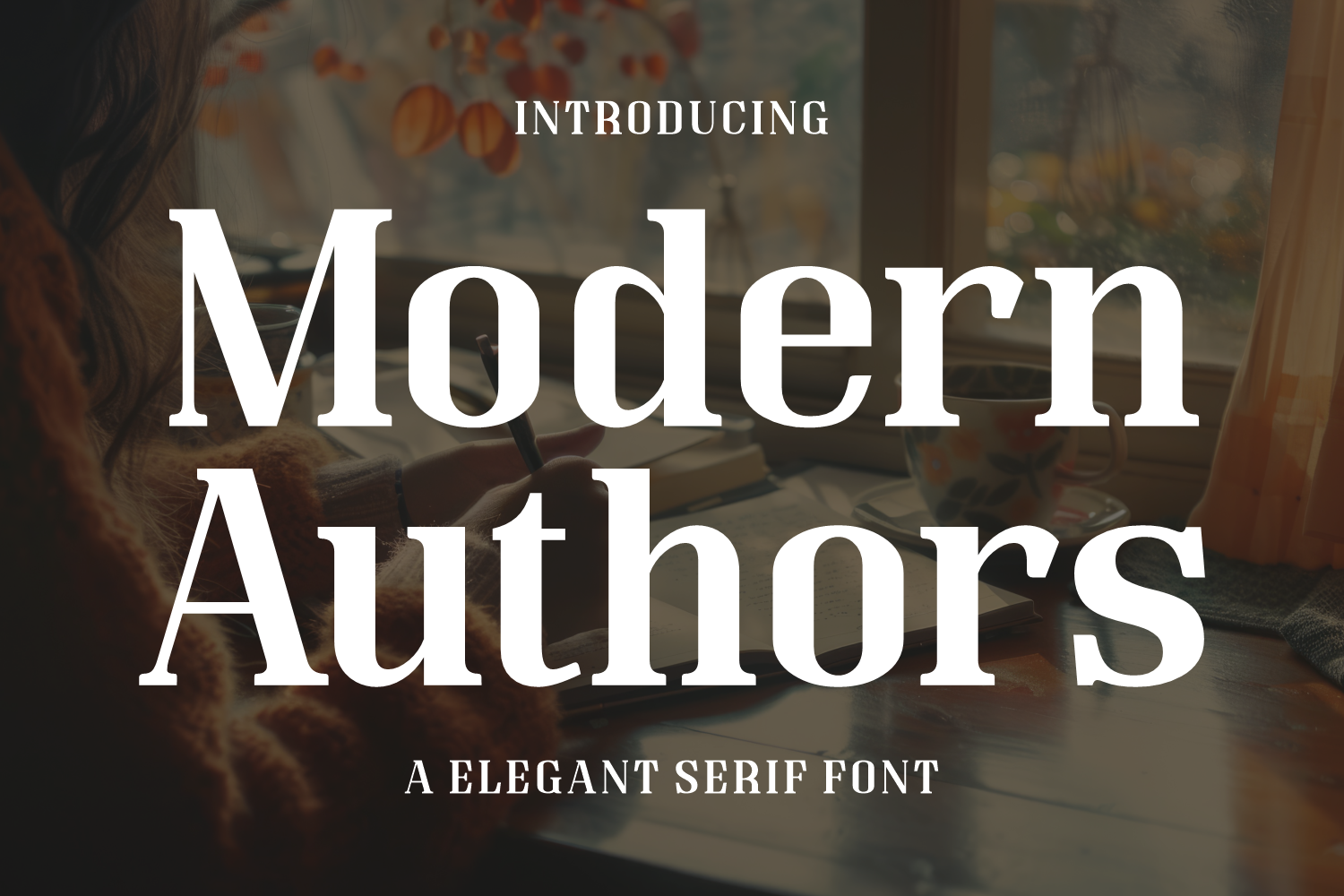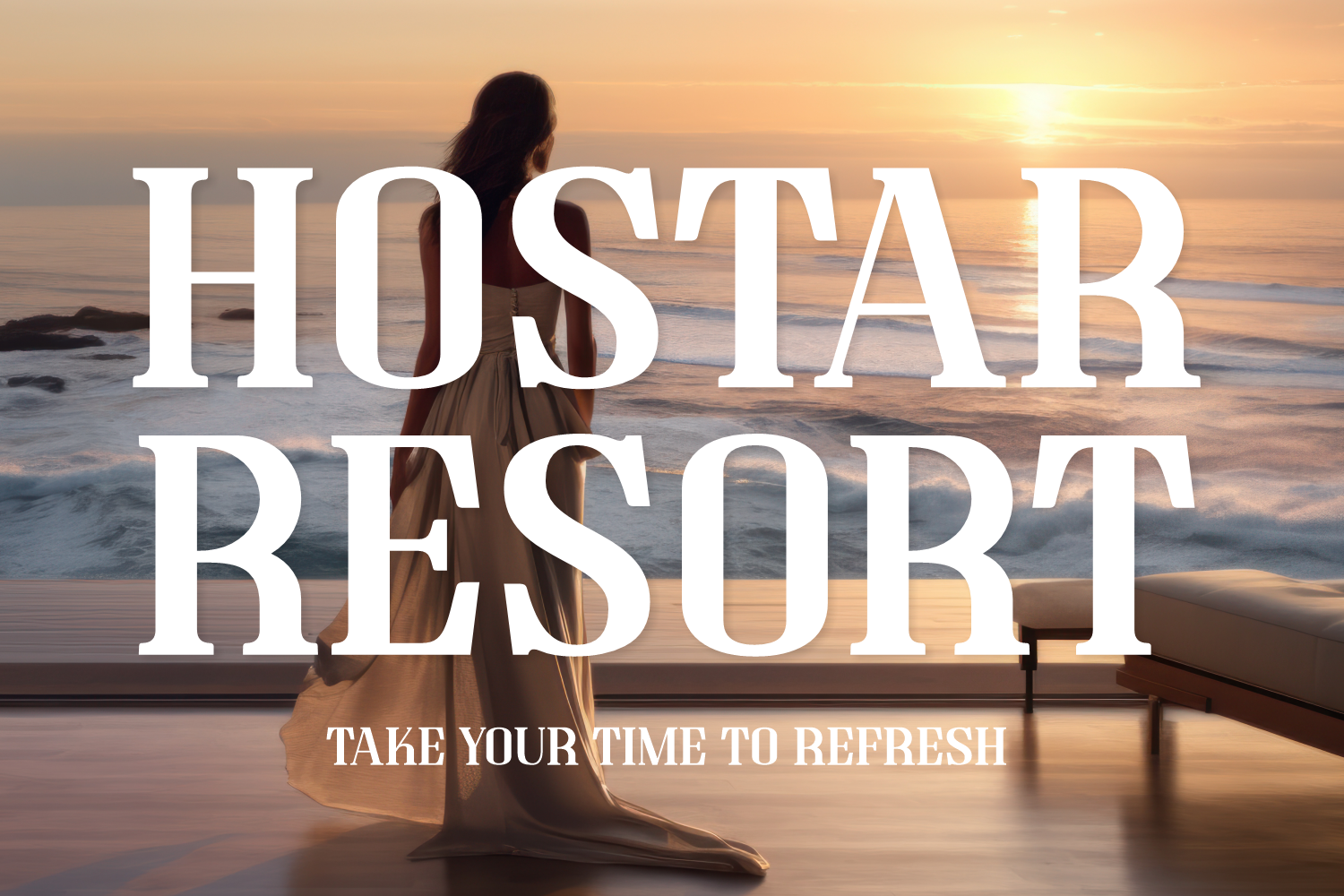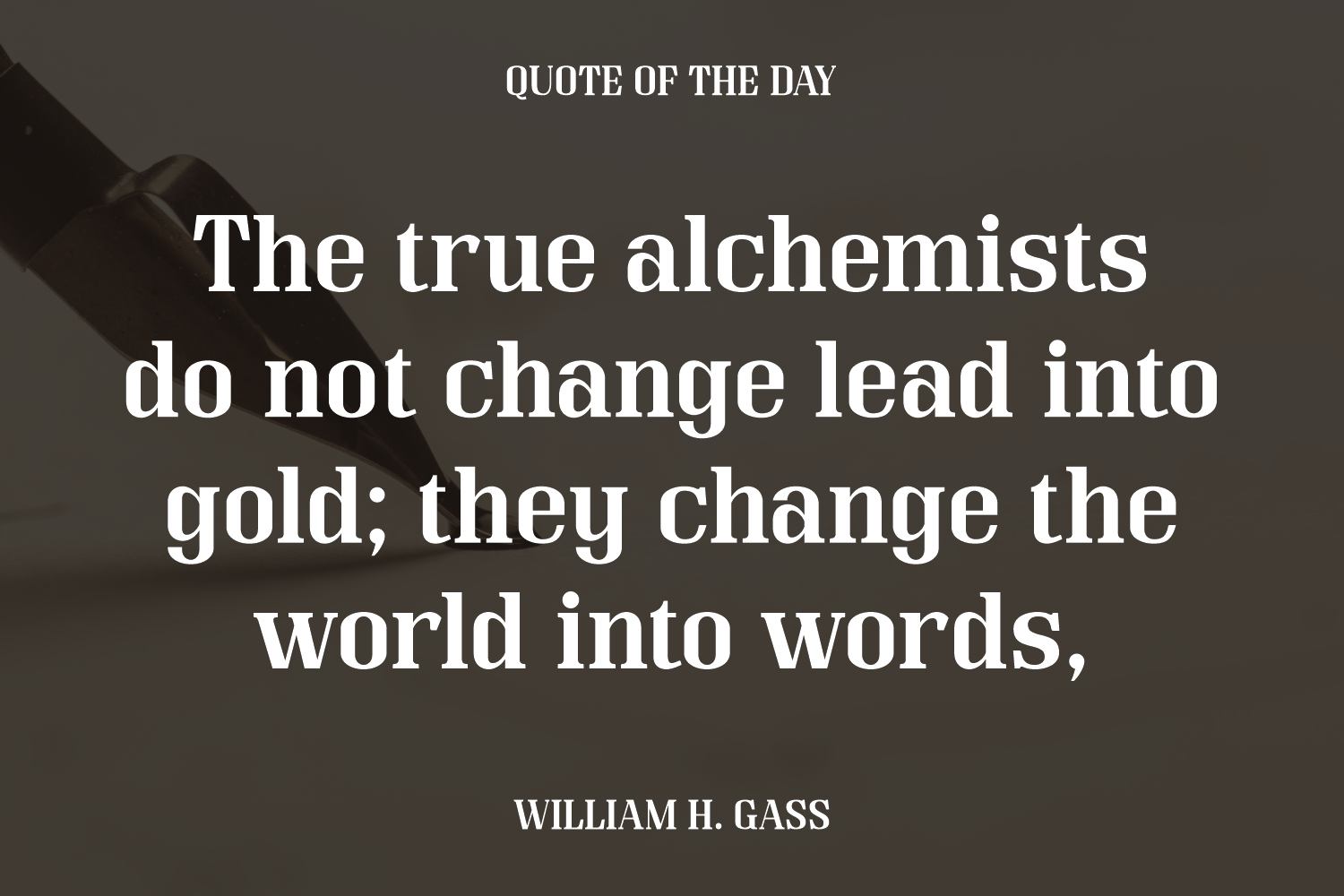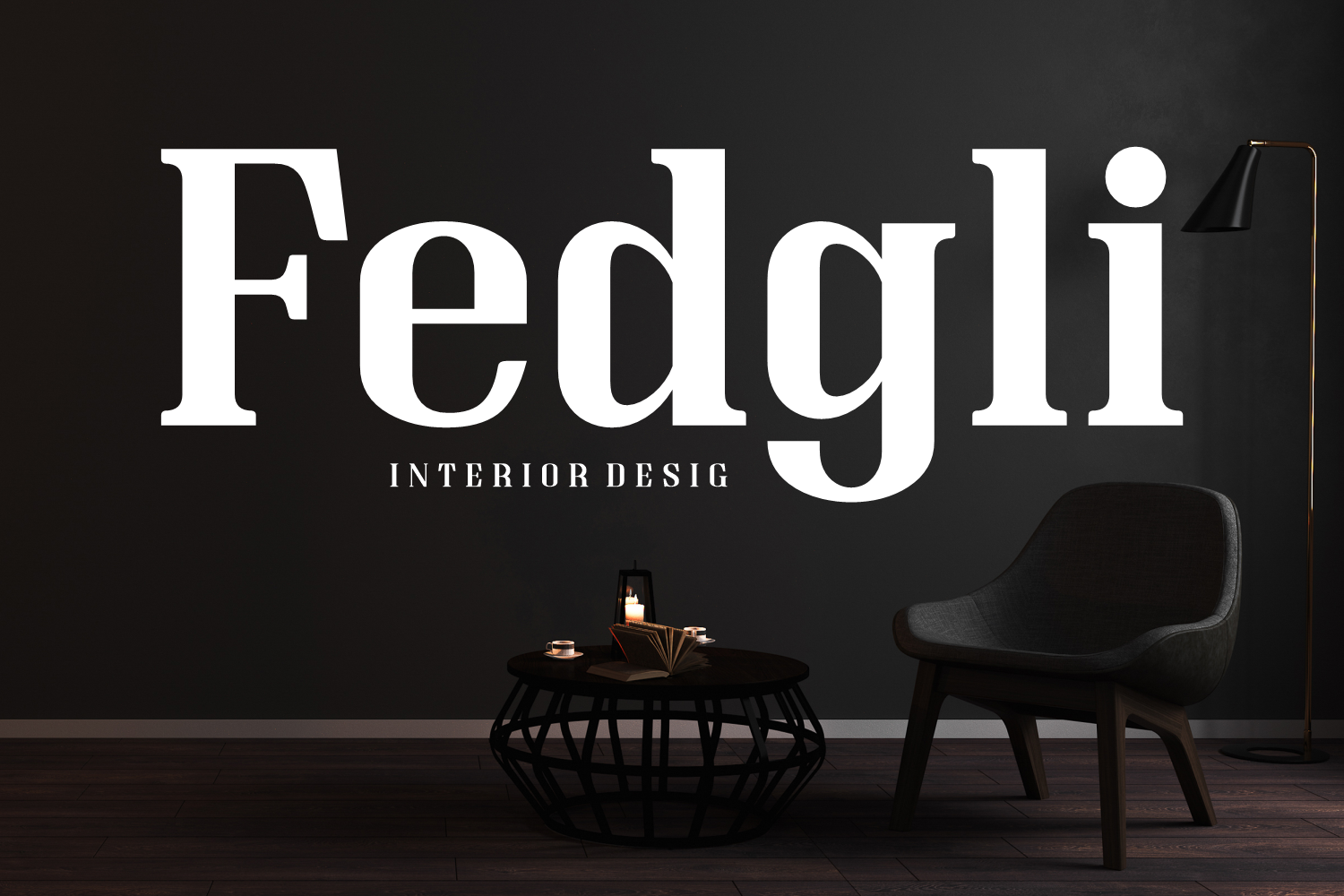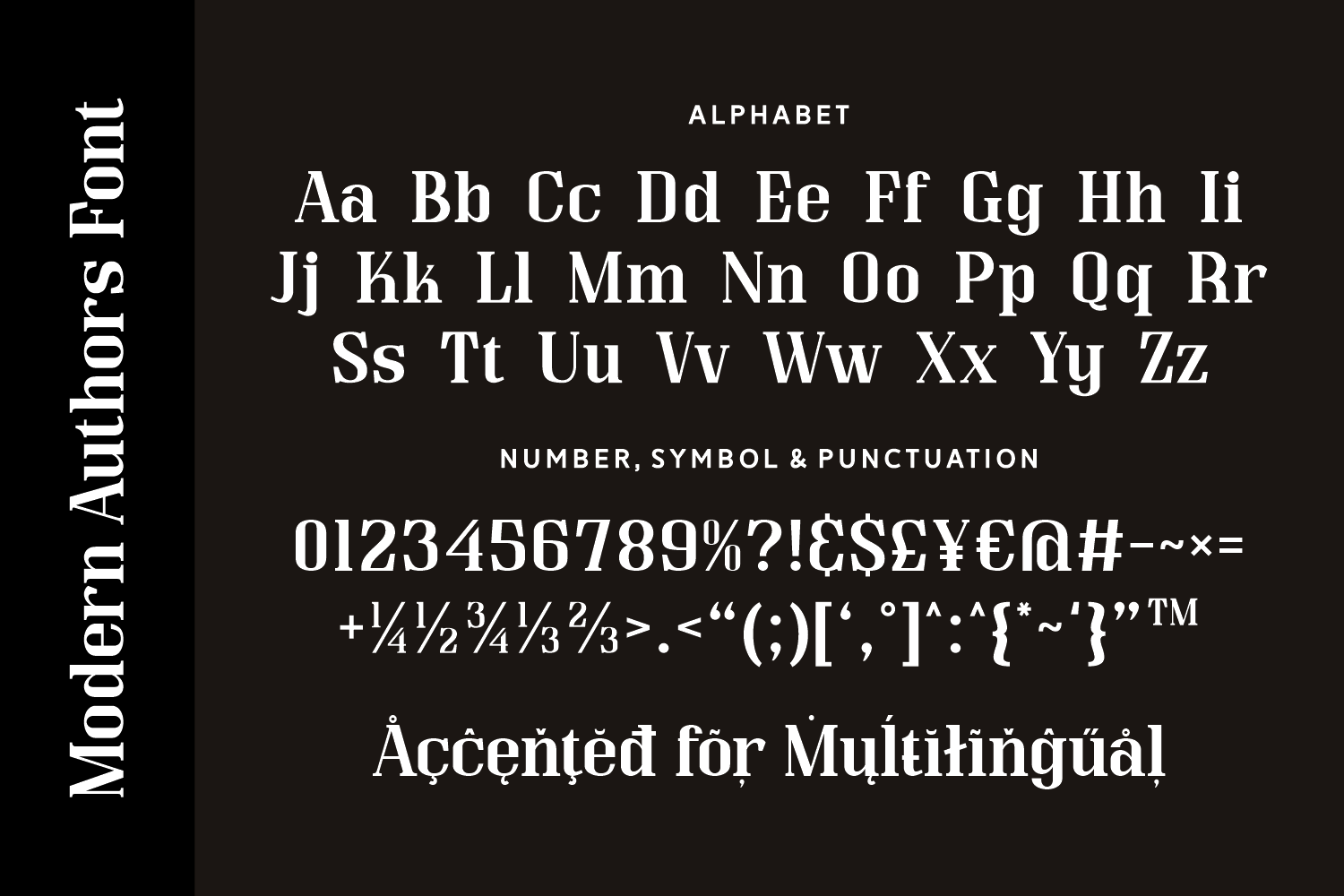
Modern Authors is a bold serif font that brings a literary-inspired charm to any project. With strong, traditional shapes balanced by modern edges, it’s a versatile typeface ideal for book covers, editorial layouts, and storytelling-focused branding. Its confident presence makes it especially suited for titles and headlines.
This font carries a warm, intellectual tone—like sitting beside a fireplace with a cup of tea and your favorite novel. Whether you're designing for print or screen, Modern Authors lends timeless style with a contemporary twist.